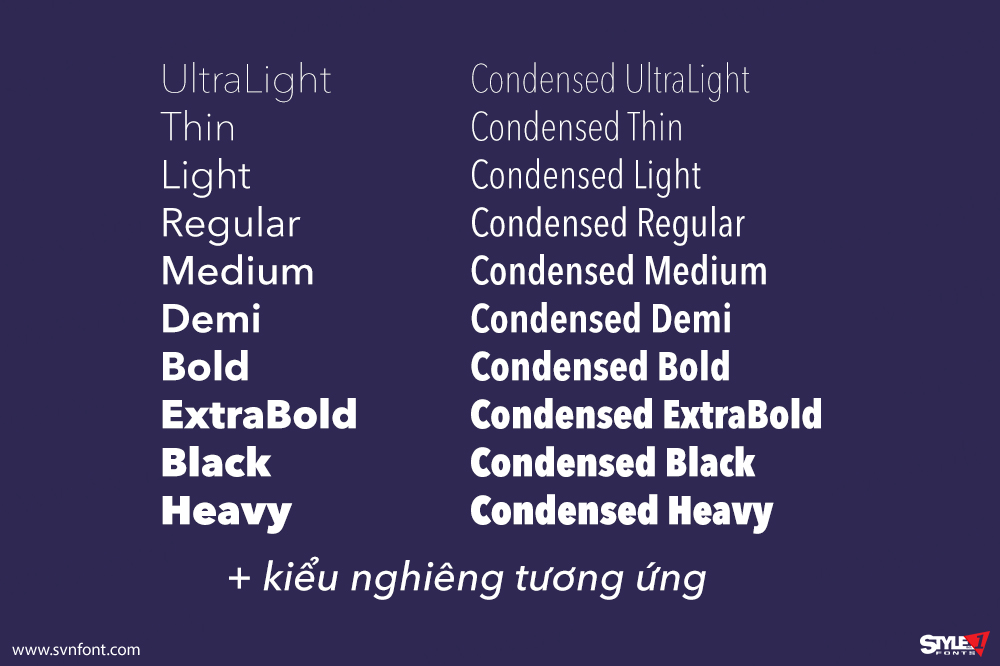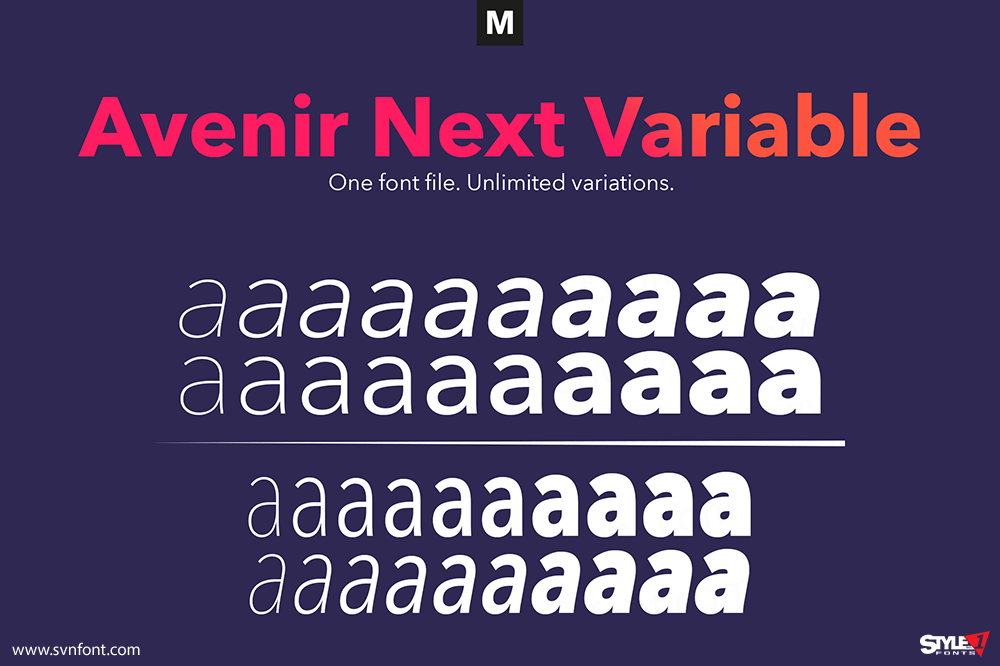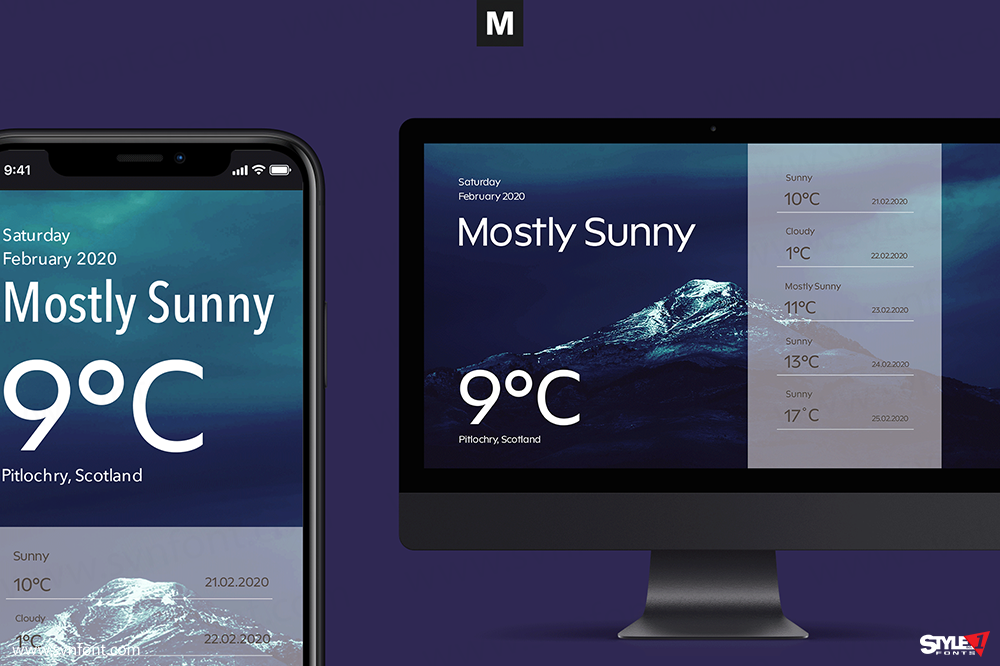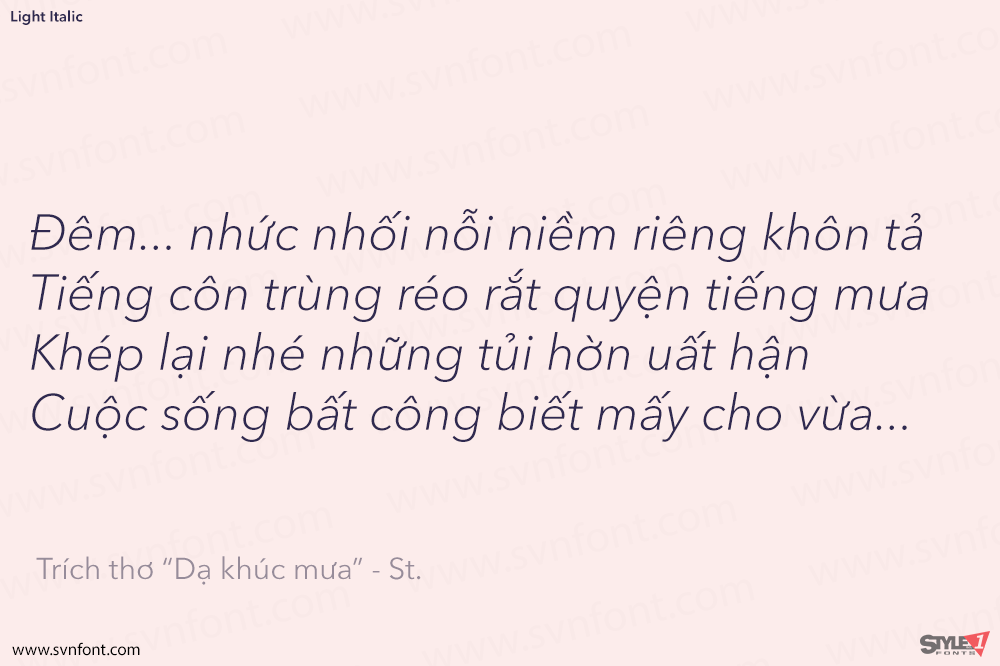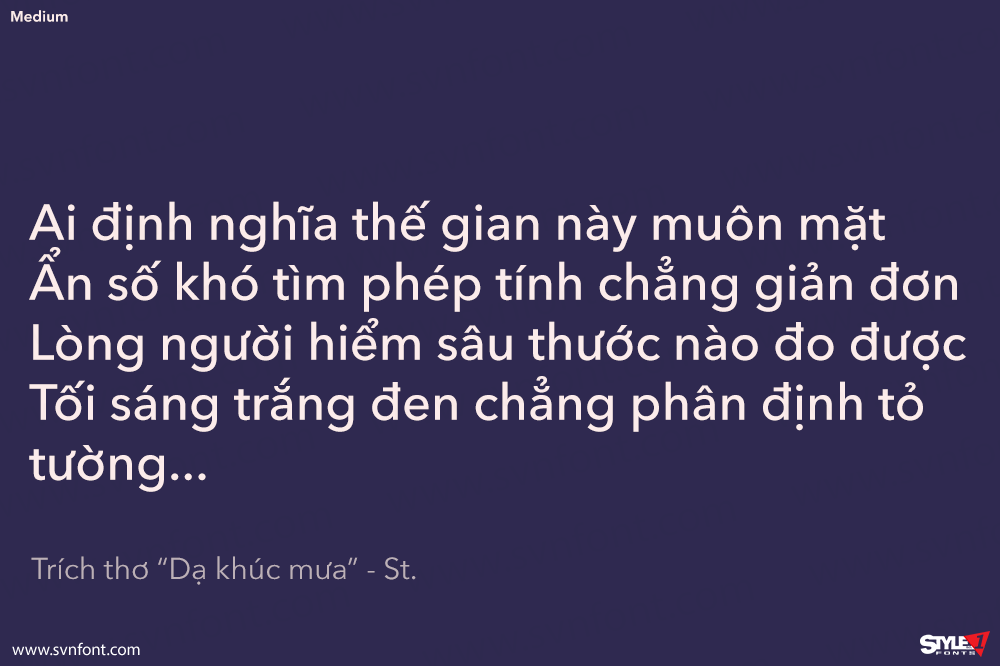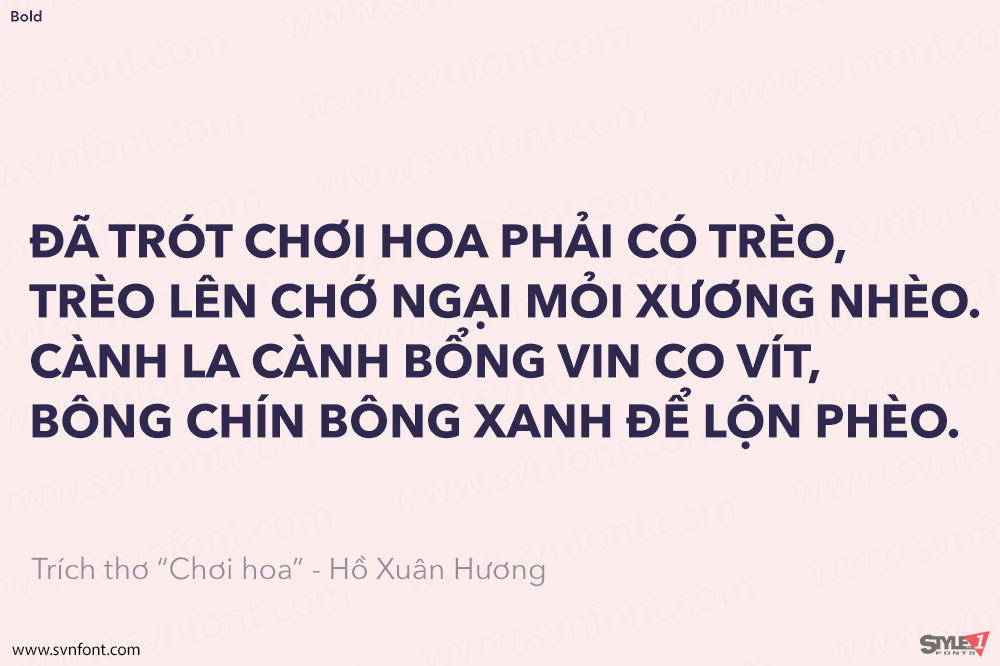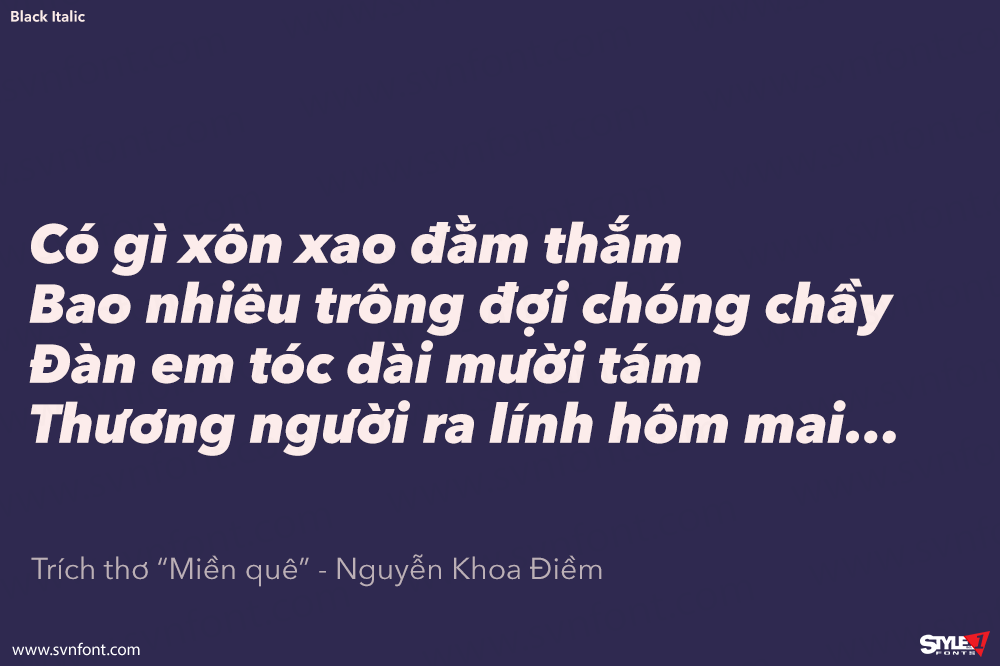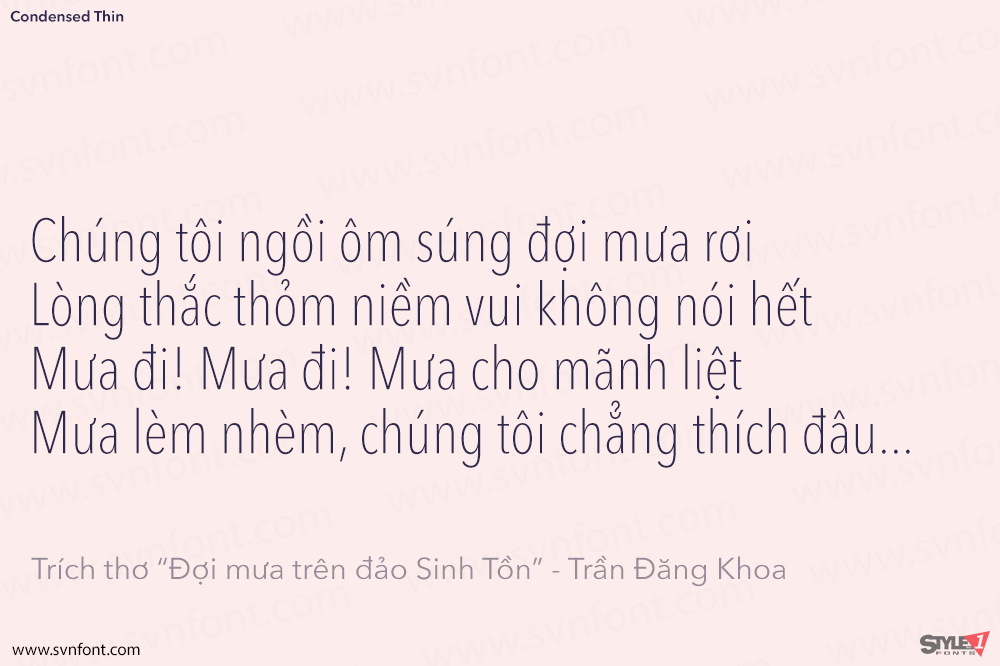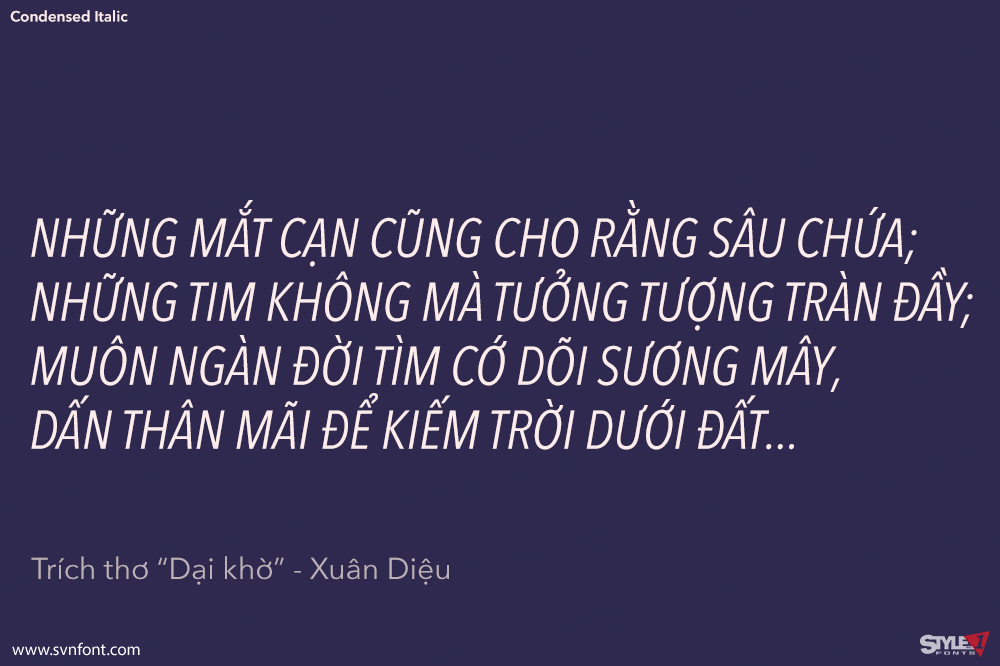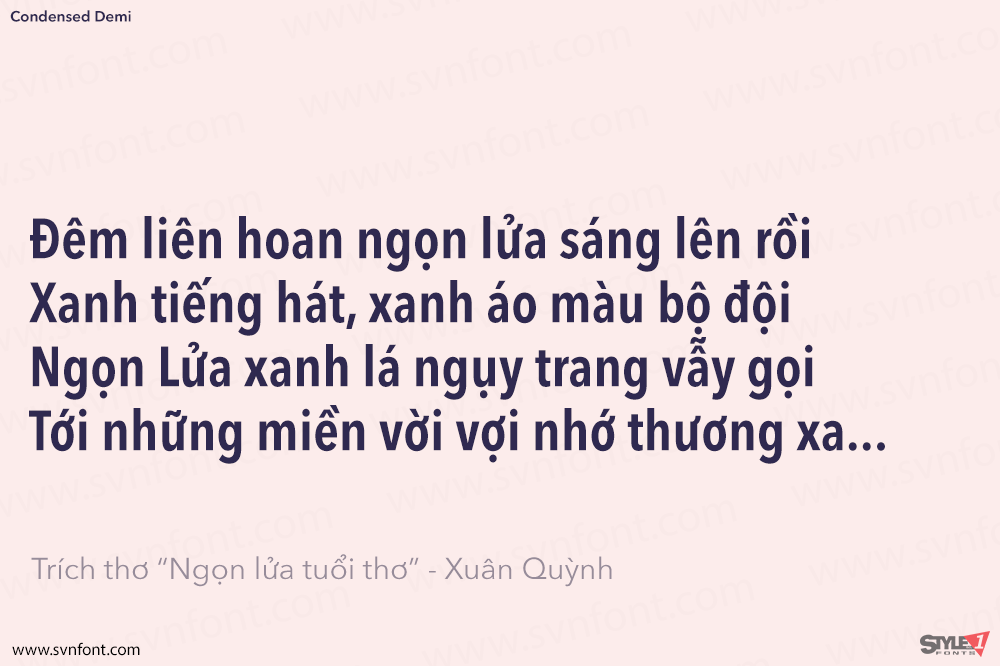
[Việt hóa] SVN-Avenir Next (40 fonts) + Variable
The Avenir Next Variable Set font is a single font file that features three axes: Weight, Width and Italic. For your convenience, the Weight and Width axes have preset instances. The Weight axis has a range from Ultra Light to Heavy. The Width axis provides a range from condensed to regular width. The Italic axis is a switch between upright and italic. Variable fonts act as a complete family of fonts in a single file. The new Variation font feature is supported by a growing number of desktop design applications, and more importantly by all the major web browsers. Variable fonts provide a variety of benefits to web and print designers and developers including flexible, responsive typography.
Nhà thiết kế: Adrian Frutiger, Akira Kobayashi
Nhà phát hành: Linotype